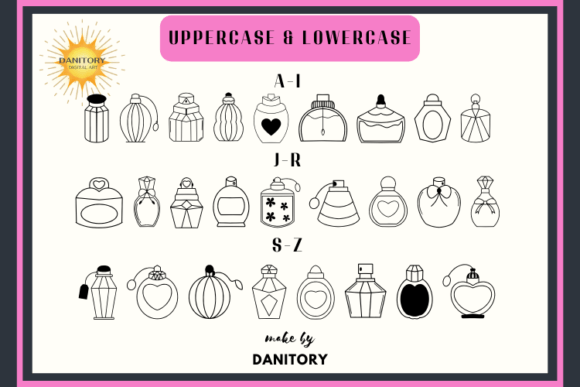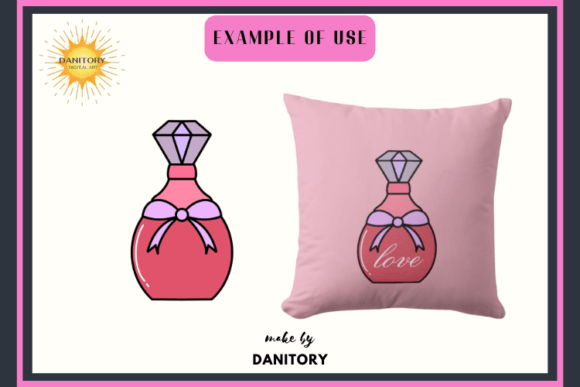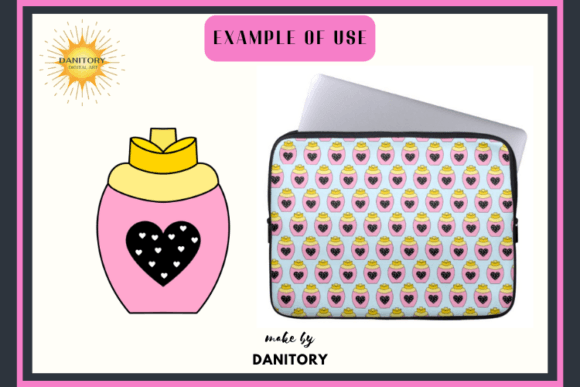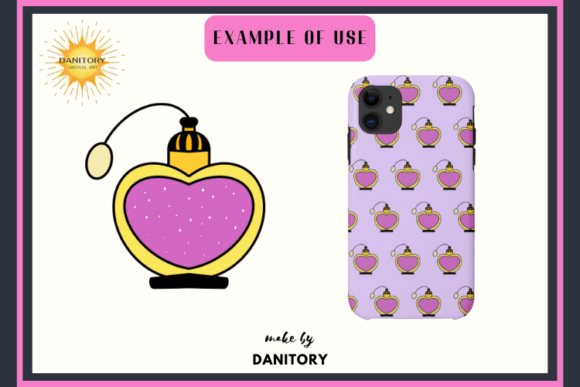
Introduction to Perfumes Font
As a designer, have you ever been stuck on a creative project, searching for the perfect element to elevate your design? That ‘aha’ moment when everything falls into place and your vision comes to life? For many of us, it’s the little things that make all the difference – a clever icon, a stylish font, or even a subtle texture. Recently, I stumbled upon a game-changing resource that’s been making waves in the design community: Perfumes Font.
This adorable dingbat font is more than just a pretty face; it’s a versatile design resource that can be used across various products, from mobile phone cases to tote bags and mugs. With its elegant design and transparent background, Perfumes Font is the perfect addition to any design project. And the best part? It’s available for free download, making it an invaluable asset for designers of all levels.
Key Features of Perfumes Font
- High-quality design resource suitable for creative projects, offering a sophisticated and elegant look.
- Features a transparent background, providing maximum flexibility for designers to use it as a standalone element or combine it with other graphics.
- Designed with precision and attention to detail, ensuring a high-resolution output of up to 300 DPI, ideal for printing and digital applications.
- Perfumes Font is a unique and exclusive design resource, not available for commercial use, making it a valuable addition to any designer’s collection.
- Perfect for use in various design contexts, including branding, advertising, and editorial projects, where a touch of elegance and sophistication is required.
Honest Review: Perfumes Font
As a designer, I’ve had the chance to work with a wide variety of fonts for my creative projects. Recently, I stumbled upon Perfumes Font and was excited to see how it would perform.
- ✨ High-quality design: The font is well-crafted and visually appealing, making it perfect for use in various design contexts.
- ✨ Transparent background: The font’s transparent background allows for easy layering and blending with other design elements.
- ⚠️ Limited font styles: While the font is high-quality, it’s only available in a single style, which may limit its versatility in certain design projects.
- ⚠️ Not suitable for small text: Due to its ornate design, the font may not be the best choice for small text or headlines.
Overall, I’m impressed with Perfumes Font and would definitely consider using it in future design projects. While it has some limitations, its high-quality design and transparent background make it a valuable resource for designers.
Tips for Getting the Most Out of Perfumes Font
Use the Perfumes Font with a high-quality image or background to create a visually appealing design. Experiment with different font sizes, colors, and styles to find the perfect combination for your project. You can also use the font for free download and use it in multiple projects.
The Perfumes Font is perfect for creative projects that require a unique and elegant design. It can be used for perfume labels, packaging, and advertising materials. You can also use the font for branding and marketing materials, such as business cards and brochures.